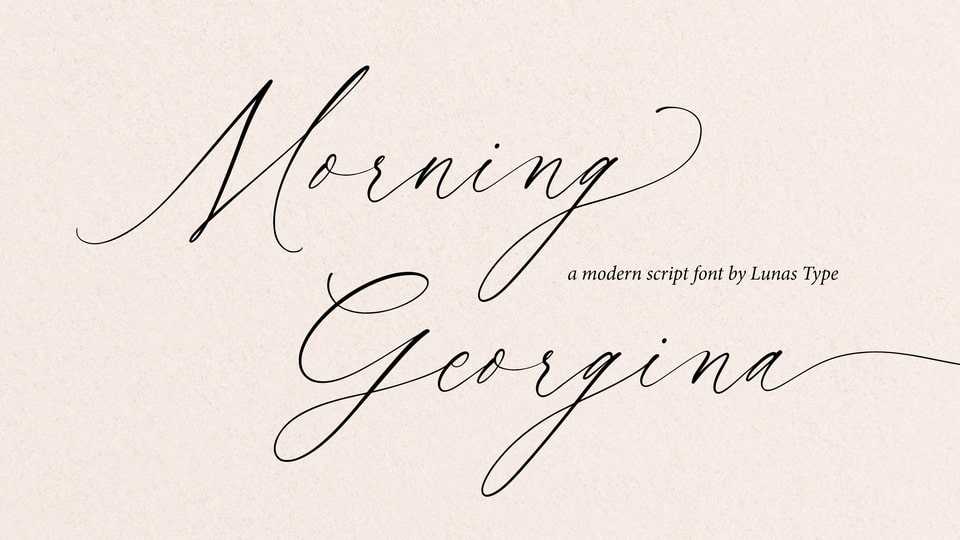
Download Morning Georgina font, an elegant and flowing handwritten typeface. It will add a luxury spark to any design project that you wish to create
Designer: Lunas Type